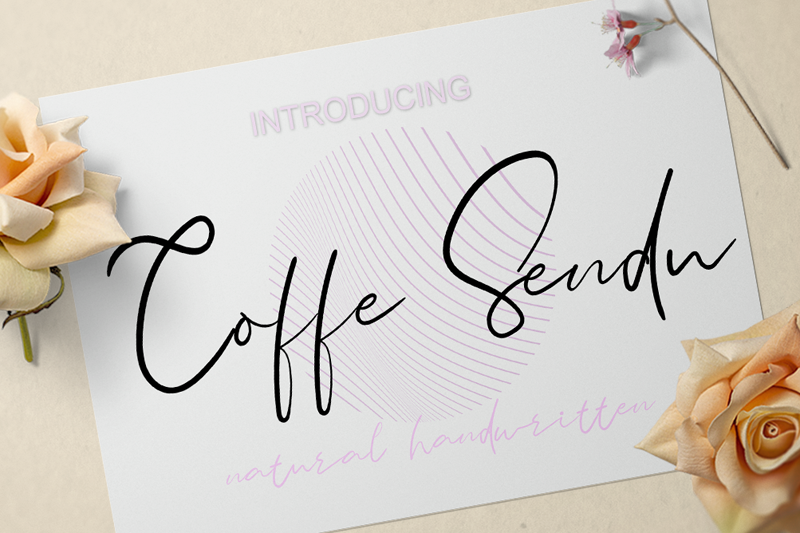
Is a cute and friendly brushed display font. No matter the topic, this font will be an incredibly asset to your fonts� library, as it has the potential to elevate any creation. PLEASE READ THIS CAREFULLY : By installing or using this font, you are agree to the Product Usage Agreement: � Coffe Sendu Script Font is allowed for PERSONAL USE. NO COMMERCIAL USE ALLOWED! � Here is the link to purchase full version and commercial license: https://www.creativefabrica.com/product/coffe-sendu/ref/934867/ � For Corporate use, you have to purchase Corporate license � If you need a custom license please contact us by email : prasetyo.andang1010@gmail.com |